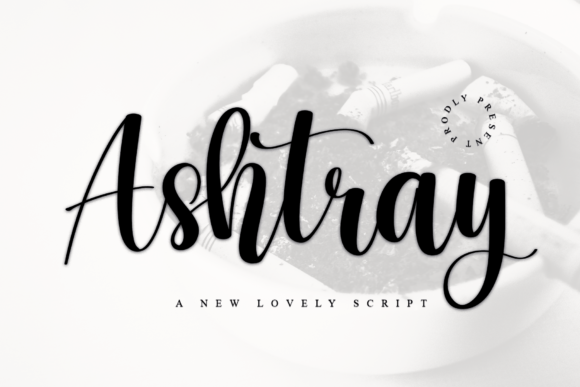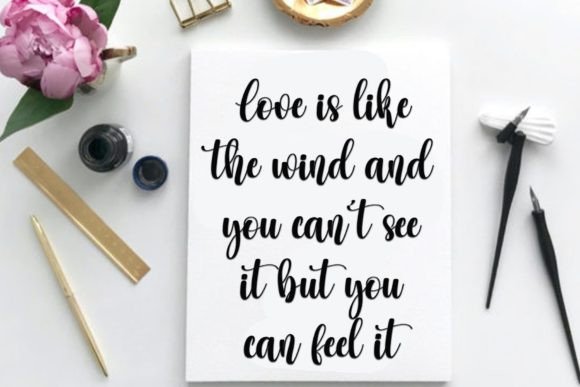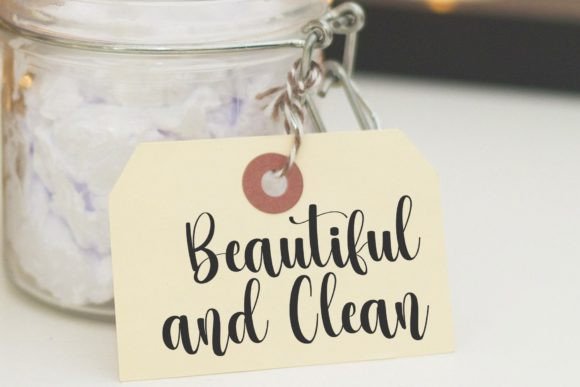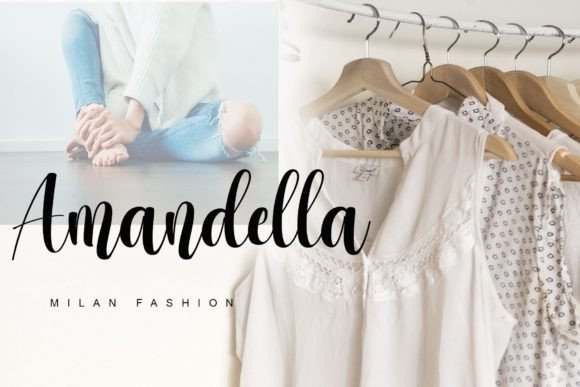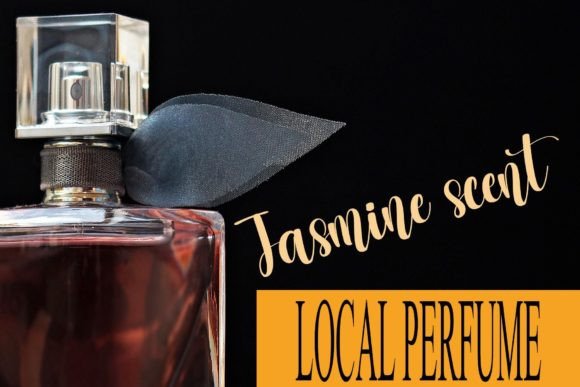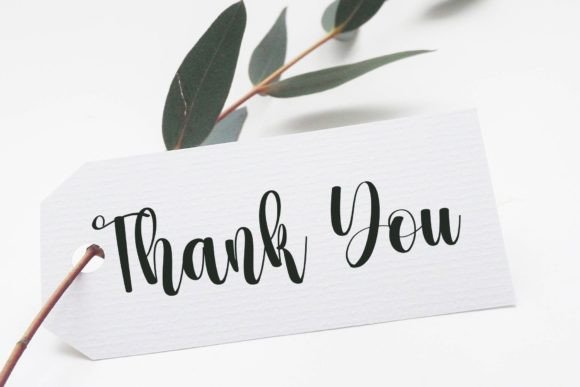
Ashtray Font
About Ashtray Font
“Ashtray” is a delicate, elegant, and flowing handwritten font that exudes a sense of charm and sophistication. With beautiful and well-balanced characters, this font is versatile, matching a wide range of design styles. When added to your most creative ideas, “Ashtray” has the power to bring them to life, infusing a touch of elegance and fluidity.
The delicate and flowing nature of “Ashtray” is evident in its carefully crafted characters. Each letter is designed with precision, creating a harmonious and visually pleasing typeface. This font becomes a versatile choice for a variety of design applications, enhancing the overall aesthetic with its elegant and graceful demeanor.
Imagine the impact of “Ashtray” on your creative ideas—it becomes more than just a font; it becomes a key element that elevates your projects with its delicate and flowing style. Whether you’re working on invitations, branding materials, or any other design project, this font adds a touch of sophistication that captivates the audience.
Incorporate “Ashtray” into your design toolkit and witness how it enhances the beauty of your most creative ideas. Let its delicate and elegant script be the element that brings a sense of fluidity and charm to your designs. From wedding invitations to branding materials, “Ashtray” becomes a companion that transforms your projects into visually stunning expressions of creativity.